Safari Tipográfico Typography Safari
An exploration of the rich historical and vernacular street lettering and typography of Coimbra. On the first day of February we led a group of keen type lovers out into the wind and rain on a search for unusual, hidden or neglected letterforms around the centre of the city. FBA allowed us to use their studio to run a workshop in the second half of day on producing a collaborative publication of the amassed photographs, rubbings and drawings. Thanks to all participants and João Bicker.
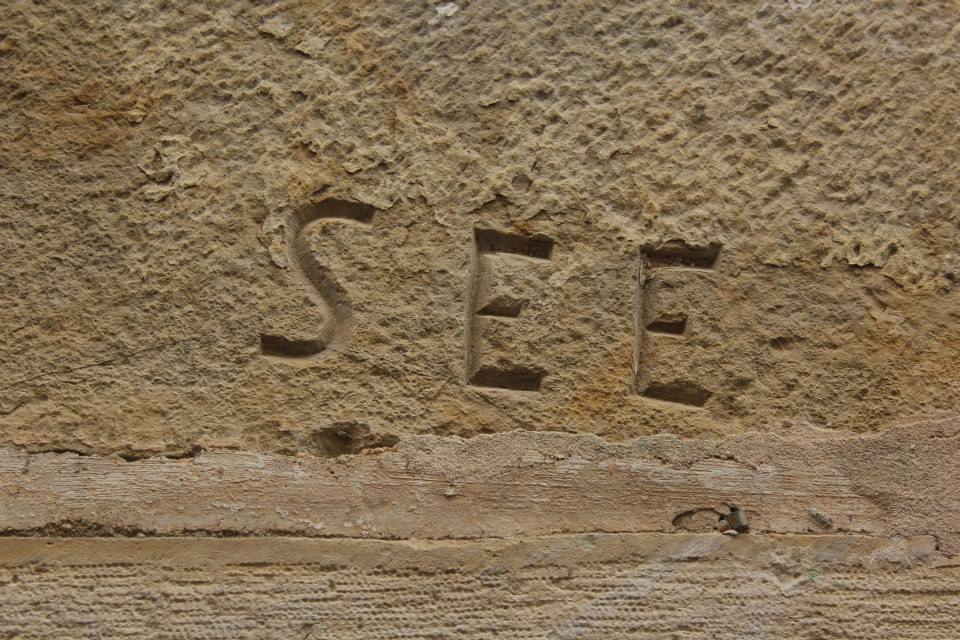
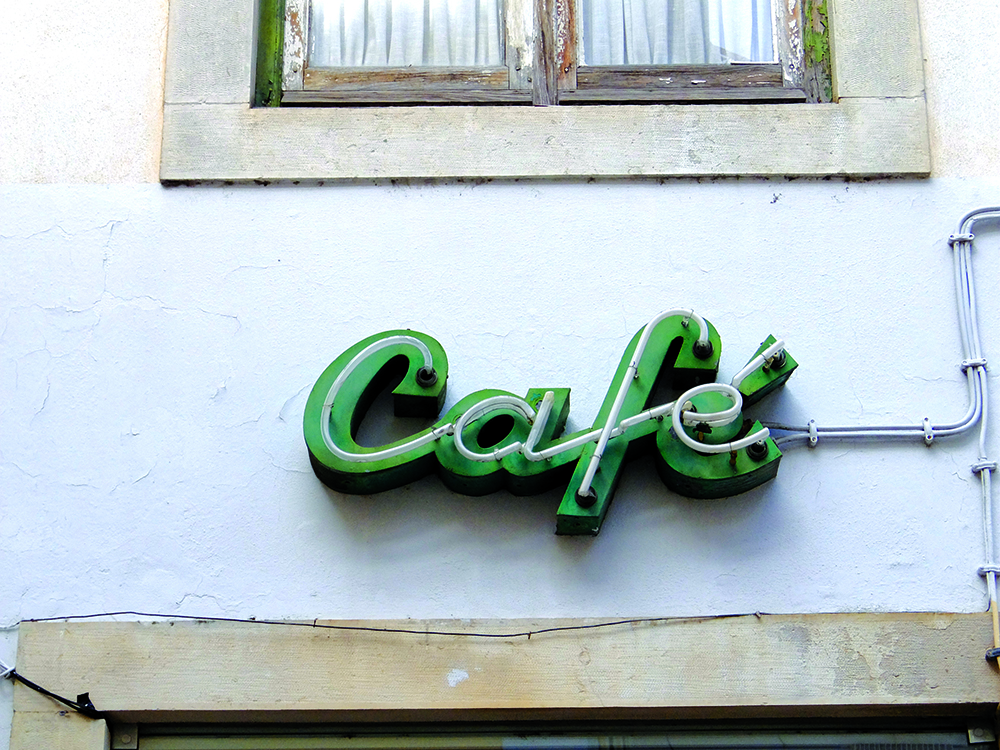
In a city where neon café signs can be found within metres of the ancient stone carvers marks on the walls of Sé Velha, and where hand inked street signs compete with stencils, graffiti and hand made ‘Republica’ signs, there is a seemingly endless array of letterforms to be found.